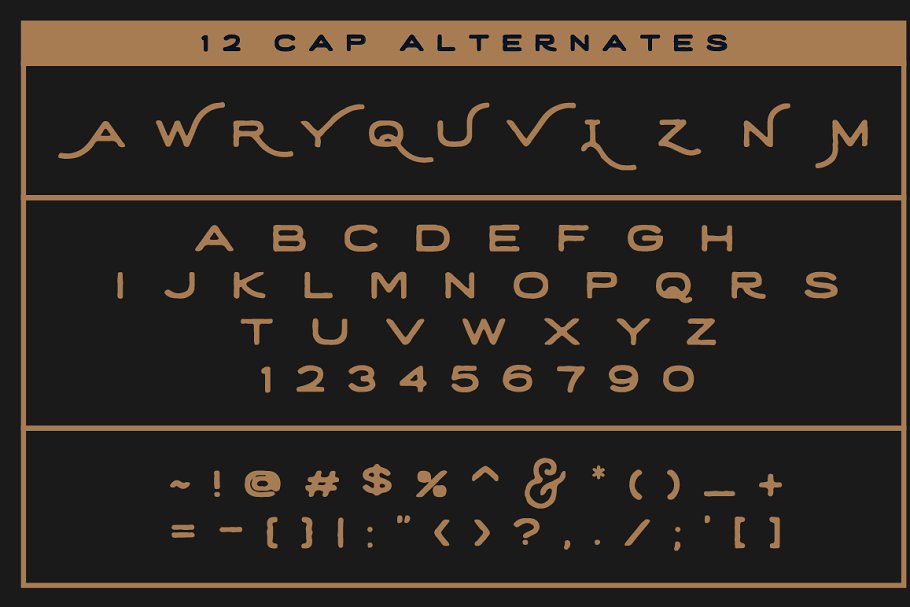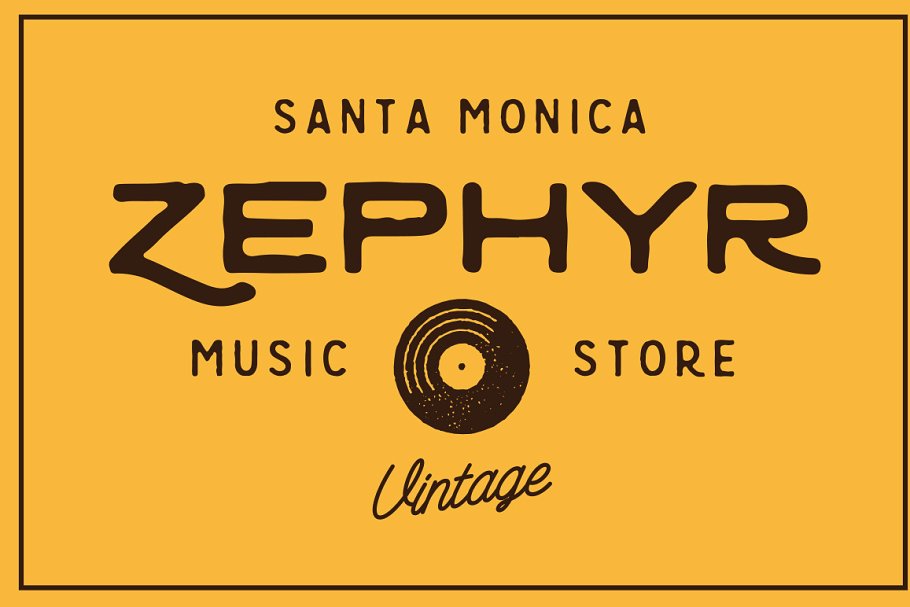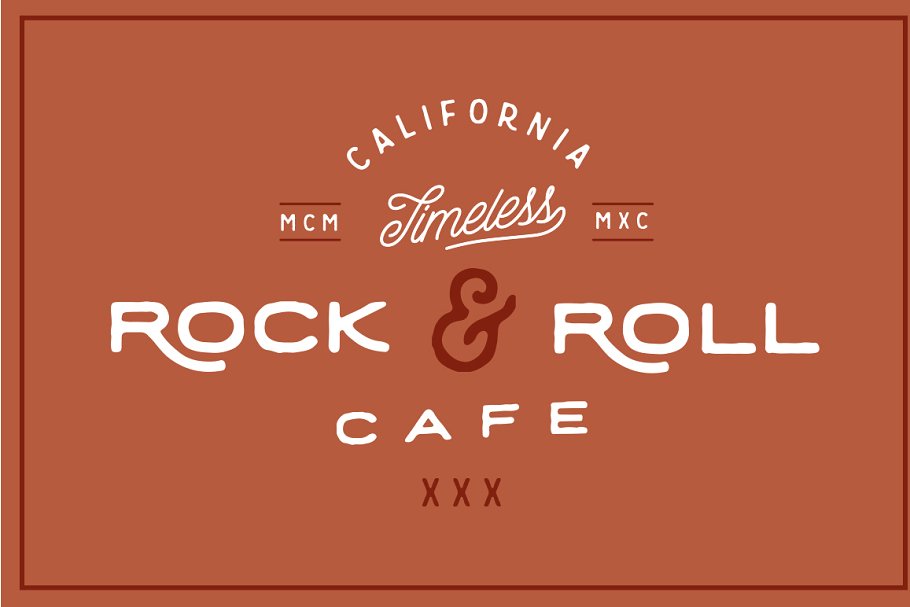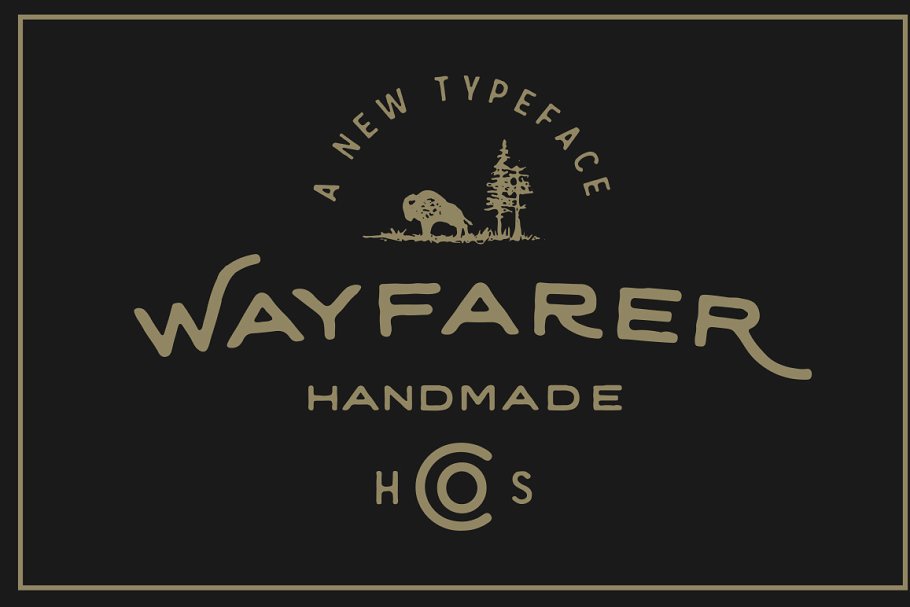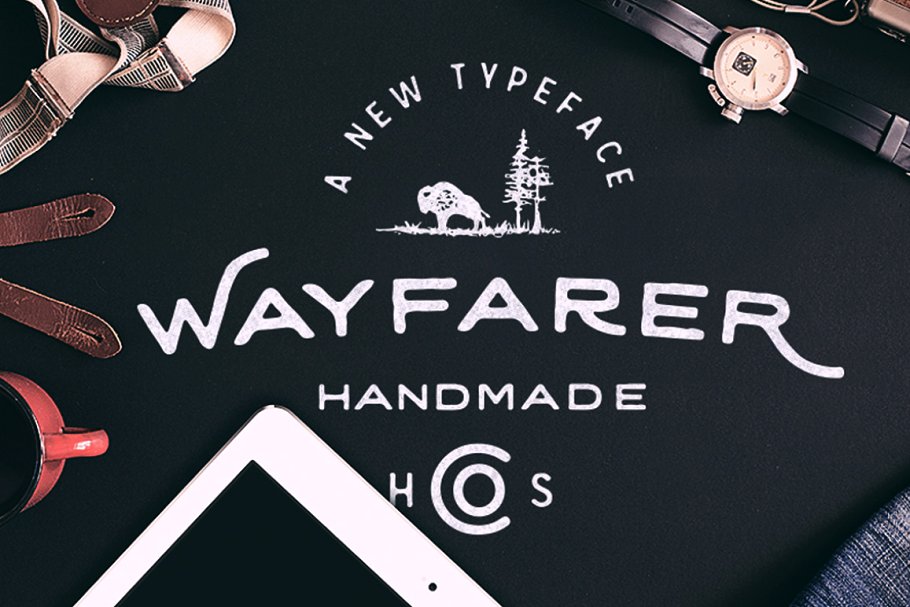
Wayfarer - Hand Drawn Font
After the success of my recent typefaces, I wanted to create a font that could be easily paired Yonder & Growler. "Wayfarer" is my newest and one of my favourites! It has so much personality and it's very versatile! I wanted to give users more options so I included a full range of Glyphs. I've also included Alternate Capital letters for A, W, R, Y, Q, U, V, L, Z, N & M. If you loved Yonder, you'll absolutely love "Wayfarer". It comes in the .OTF format.